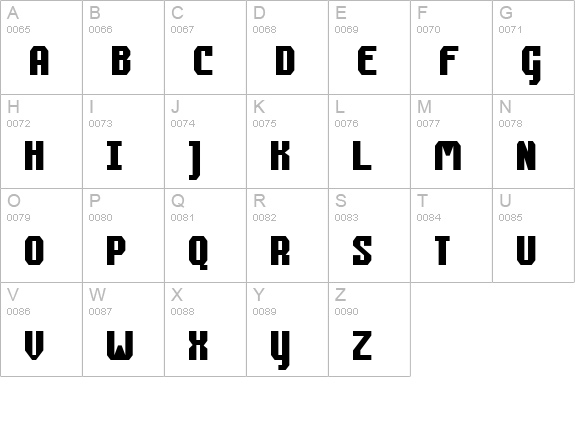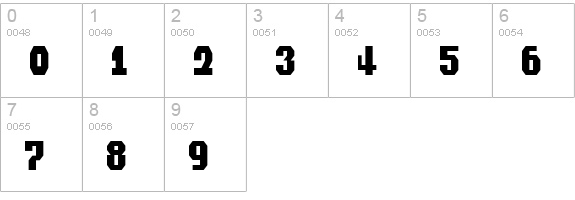
Commonwealth Condensed is a distinctive, condensed-width variant in the Commonwealth typeface family \xE2\x80\x94 well suited to design and typography projects.
Introducing Commonwealth Condensed font, a sleek and sophisticated typeface designed to make a bold statement in any project. This versatile font features clean lines and a modern aesthetic, perfect for creating eye-catching designs. Whether you're working on a branding project, editorial layout, or website design, Commonwealth Condensed font will add a touch of elegance and professionalism to your work. Best of all, Commonwealth Condensed font is available for free download at FontsMarket.com. Take advantage of this amazing offer and elevate your design projects with this stunning typeface. Don't miss out on the opportunity to add Commonwealth Condensed font to your font library today!